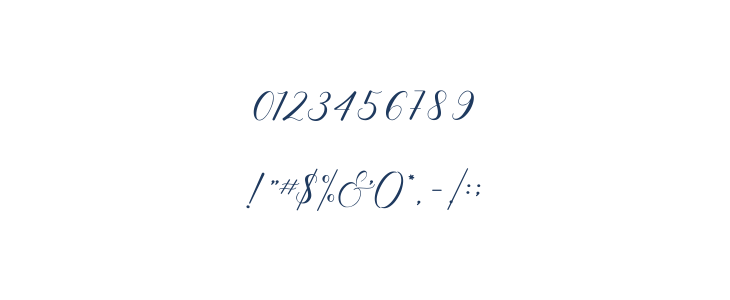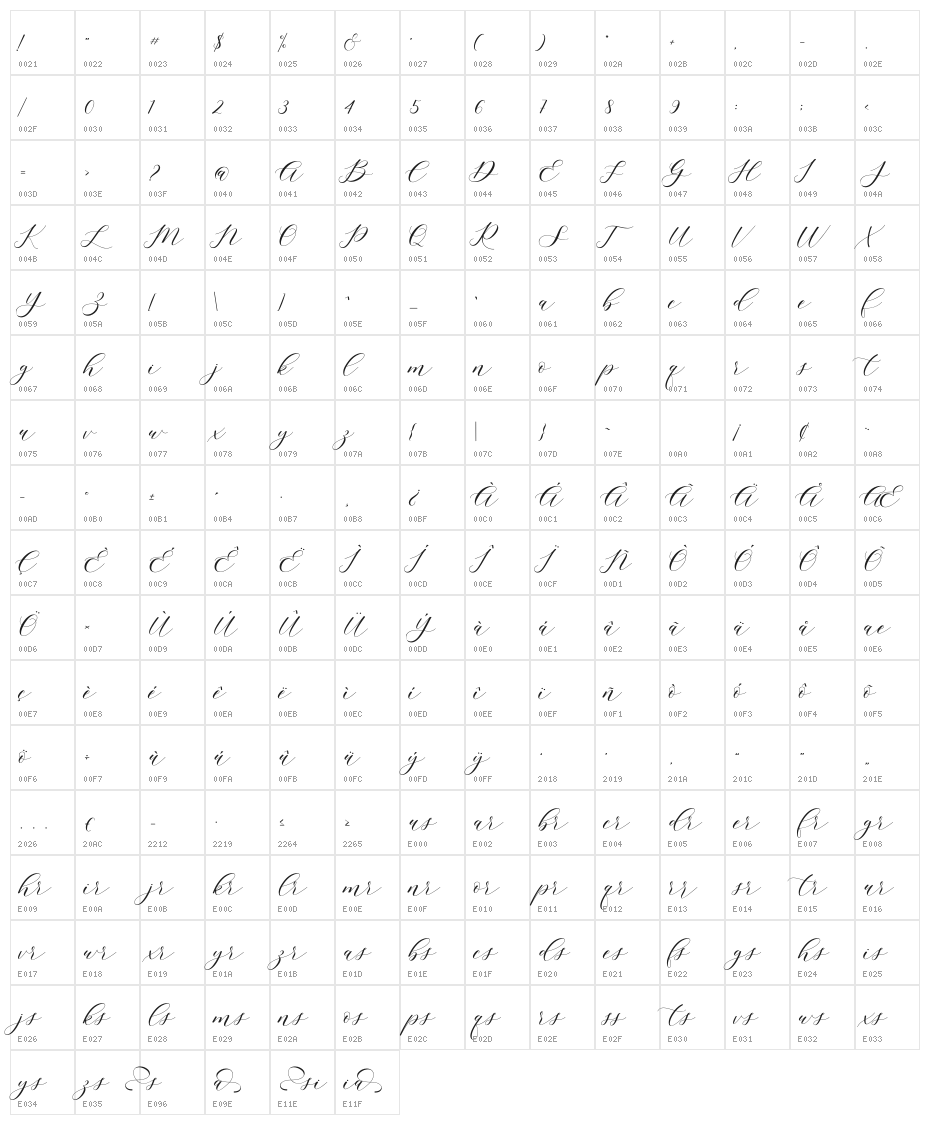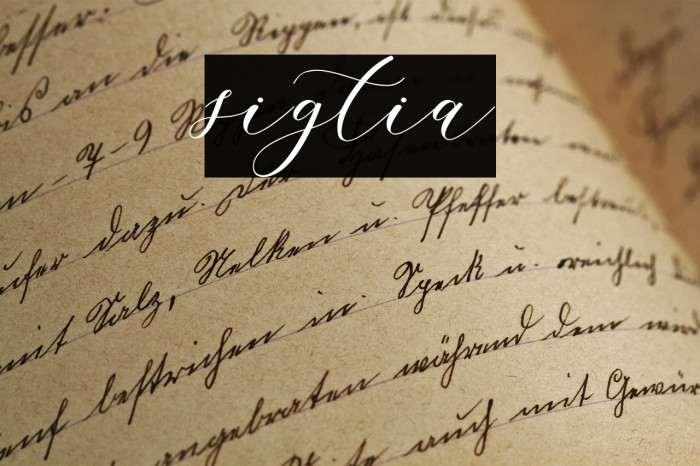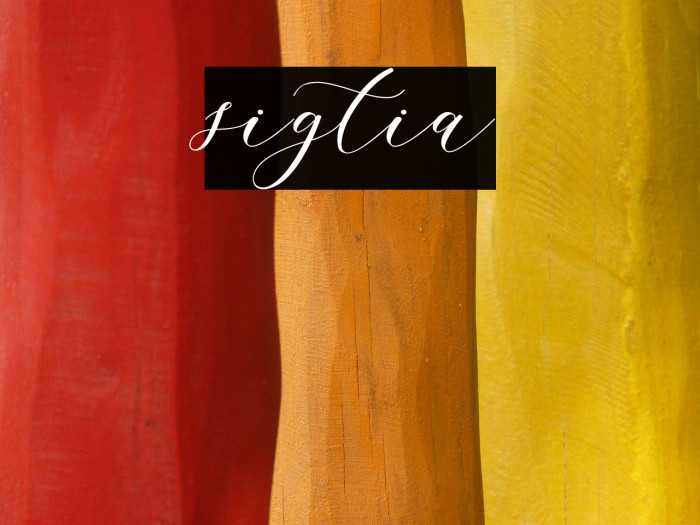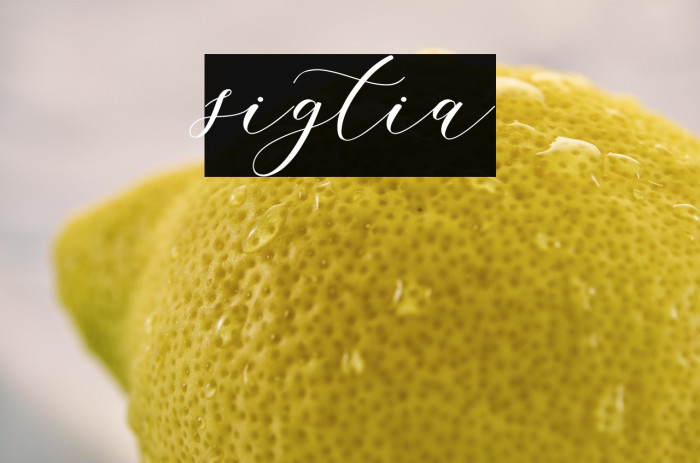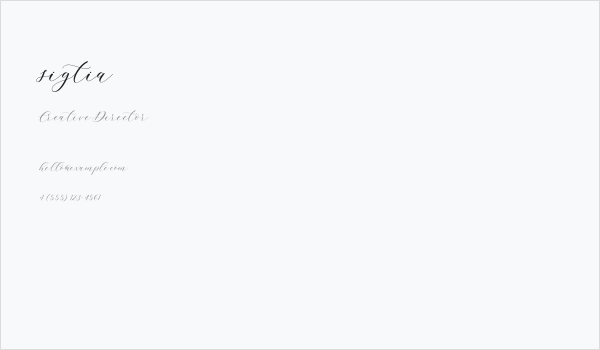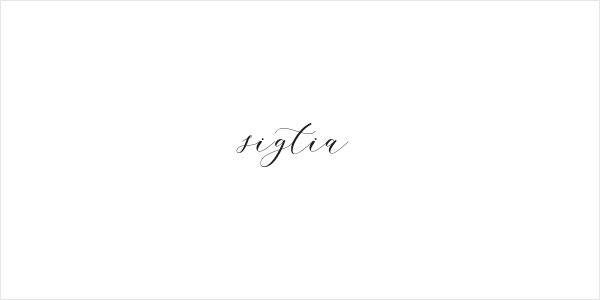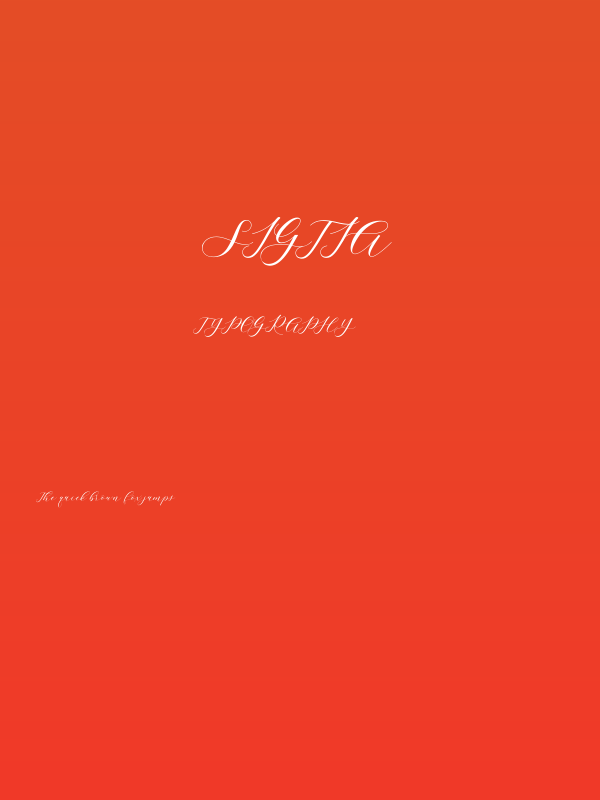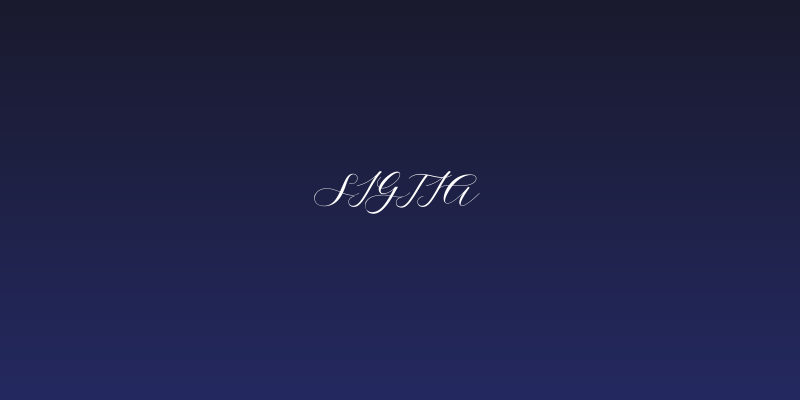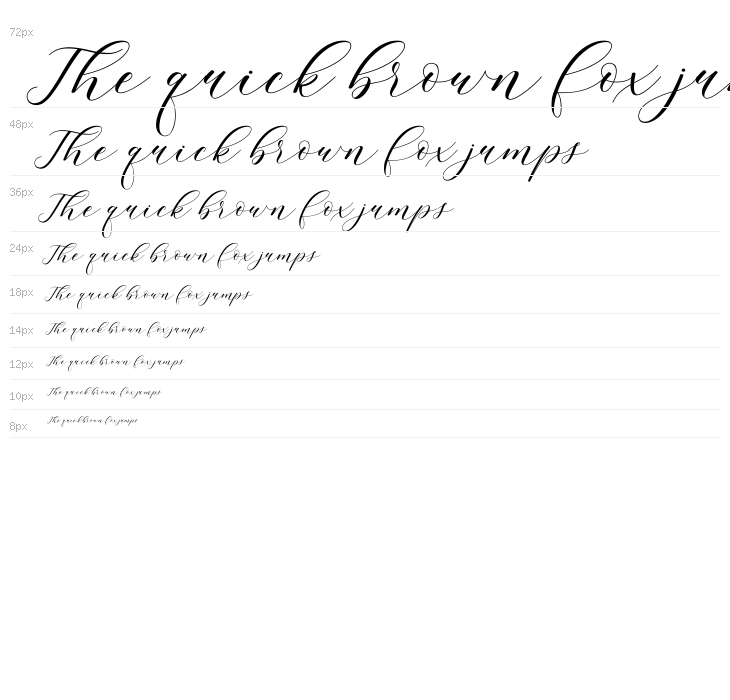
sigtia Font
sigtia Description
This elegant script font features flowing, interconnected letters with a graceful and sophisticated appearance. The uppercase letters are characterized by their sweeping curves and loops, creating a sense of fluidity and motion. The lowercase letters maintain a consistent style, with delicate strokes and a slight slant that enhances readability. The numerals are designed with a similar flair, ensuring they complement the overall aesthetic. Special characters are thoughtfully integrated, maintaining the font's cohesive look. This font exudes a sense of luxury and refinement, making it ideal for projects that require a touch of elegance.